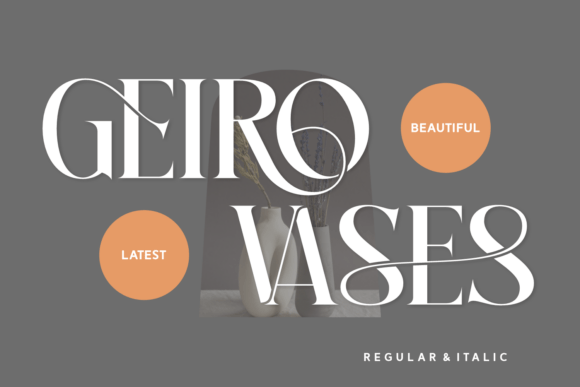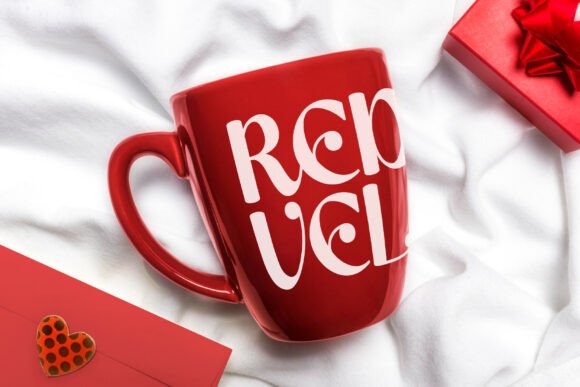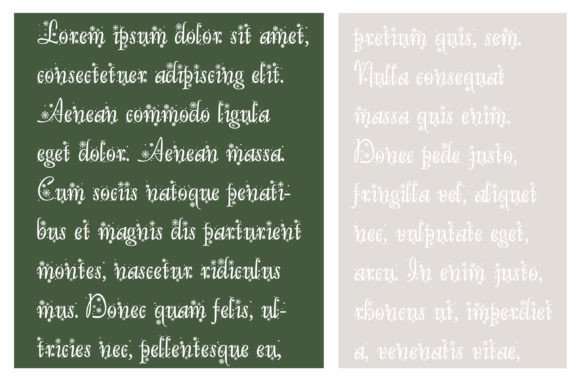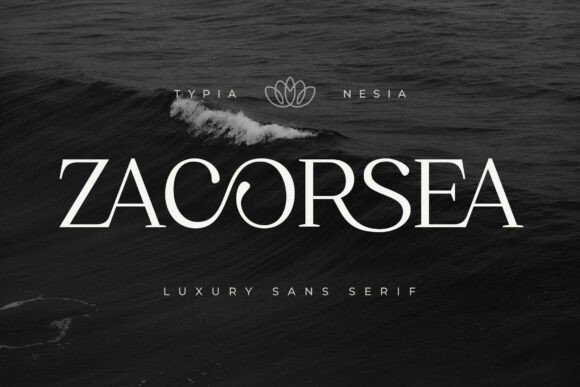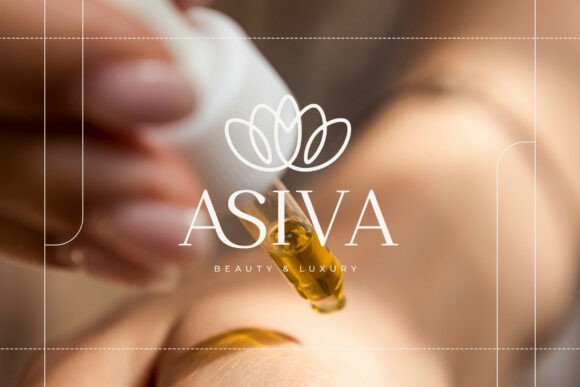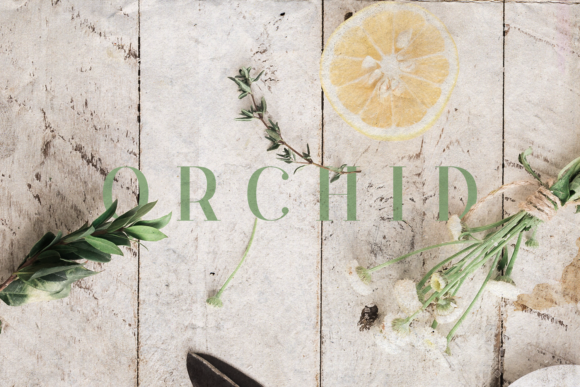
Top 16 Modern Wedding Serif Fonts for a Luxury Aesthetic
In this curated list, I’m sharing my top 16 wedding serif fonts that perfectly blend modern sophistication with timeless charm. From razor-sharp editorial styles to delicate, ornament-filled scripts, these selections are designed to elevate your invitations, branding, and stationery to a truly professional, luxury aesthetic.
Wedding Destiny serif Font
When I first came across the Wedding Destiny serif font, I immediately knew it was going to be a staple in my design toolkit. As someone who spends hours hunting for the perfect typography, I’ve found that many serif fonts can feel a bit too stiff or corporate for intimate projects. This one, however, is a total breath of fresh air. It’s a vintage-inspired cursive typeface that radiates warmth and a touch of nostalgic romance, making it feel less like a digital asset and more like a cherished heirloom.
In my own design practice, I’ve found that the true charm of this typeface lies in its ability to soften a layout while maintaining a high level of sophistication. It is particularly effective for wedding stationery, organic food labels, and feminine lifestyle branding where you want to evoke a sense of elegance without being unapproachable. I love enhancing its vintage feel by pairing it with delicate botanical illustrations or muted, earthy color palettes. Because it strikes such a beautiful balance between casual and formal, it has also become my go-to choice for “thank you” cards and boutique logos where a human, approachable touch is the secret to truly connecting with a customer.
Winter Wedding Serif Font
As a designer, I’m always on the hunt for serif fonts that can instantly set a specific mood without requiring hours of extra illustration work. That is exactly why I fell in love with the Winter Wedding typeface. It is a stunning, formal font adorned with a flurry of exquisite snowflakes, effectively bringing a touch of high-end elegance to any winter-themed layout. It manages to transform standard text into a literal winter wonderland, creating a picturesque and sophisticated atmosphere that feels both magical and professionally polished.
In my recent projects, I’ve found that this font is the ultimate “secret weapon” for creating a beautiful and cohesive seasonal aesthetic. Whether I’m working on high-end wedding invitations, holiday cards, or editorial spreads, the delicate snowflake embellishments add a layer of detail that feels incredibly intentional. If you are looking for serif fonts that bridge the gap between traditional formality and festive charm, this is the one to reach for—it’s perfect for those special occasions where you want your typography to tell a story all on its own.
Wedding Serif Font
Lately, I’ve been finding myself reaching for the Wedding serif font whenever a project calls for something truly special. As a designer, you quickly learn that not all serif fonts are created equal; some feel too rigid, while others lose their professional edge. This particular typeface, however, strikes that perfect, elusive balance. It is an authentic serif with a distinctly romantic touch, expertly designed to feel both timeless and fresh. In my experience, it has this unique potential to take a creative concept from “good” to “extraordinary” just by its presence on the page.
I really consider this font to be a true favorite for any high-level design work. Whether I’m mocking up a luxury brand identity or fine-tuning a layout for a client, the Wedding serif font brings a level of sophistication that is hard to match. It doesn’t just sit there—it actively enhances the atmosphere of the design. If you’re looking to push your creative ideas to the highest level, I can’t recommend this one enough; it’s one of those essential serif fonts that instantly makes everything look more polished and intentional.
Black Mogan Serif Font
When I’m working on a high-end branding project, I often find that standard serif fonts can feel a bit too traditional for a contemporary audience. That’s where Black Mogan comes in—it’s a stunningly modern serif that feels incredibly fresh and versatile. What I personally love about this typeface is the inclusion of unique alternates and ligatures. These subtle details allow me to customize a logo or a headline so it feels truly bespoke, making it a perfect fit for everything from edgy t-shirt designs and posters to high-end photography watermarks and inspirational quotes.
In my design workflow, the Black Mogan serif font serves as the ultimate “all-rounder” for display creations. While it has the sharp, clean lines required for a professional corporate identity, it also carries an elegance that is well-suited for more delicate work, like wedding invitation cards. It has this rare ability to look both trendy and timeless at the same time. If you are looking to elevate your creative toolkit with serif fonts that offer a bit more personality and flair, Black Mogan is definitely a choice that will help you take your branding materials to the next level.
Orchid Serif Font
In my daily design routine, I’m always searching for serif fonts that manage to look expensive without being overly complicated. I recently started playing around with the Orchid font, and it is honestly such an elegant and delicate choice. It has this incredibly versatile style that makes it a dream to work with; whether I’m mocking up gorgeous wedding invitations or experimenting with some beautiful stationary art, it just seems to fit the mood perfectly. It’s one of those rare finds that feels both high-end and deeply approachable.